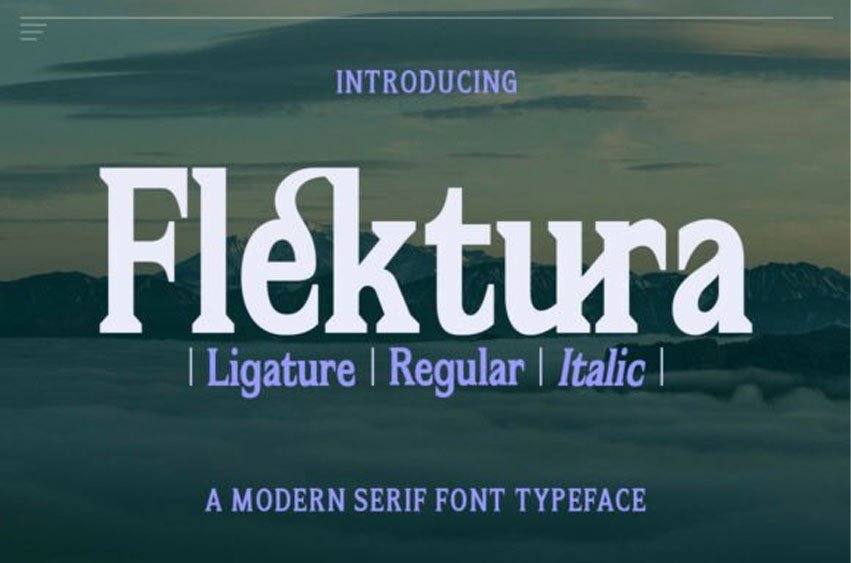
Flektura Font is a striking modern serif font that blends classic elegance with sharp, contemporary detailing. Featuring Regular, Italic, and Ligature styles, Flektura offers strong versatility for both editorial and branding purposes.
Its high contrast strokes and stylish letterforms make it ideal for headlines, logos, posters, and sophisticated layouts where character and clarity matter most.